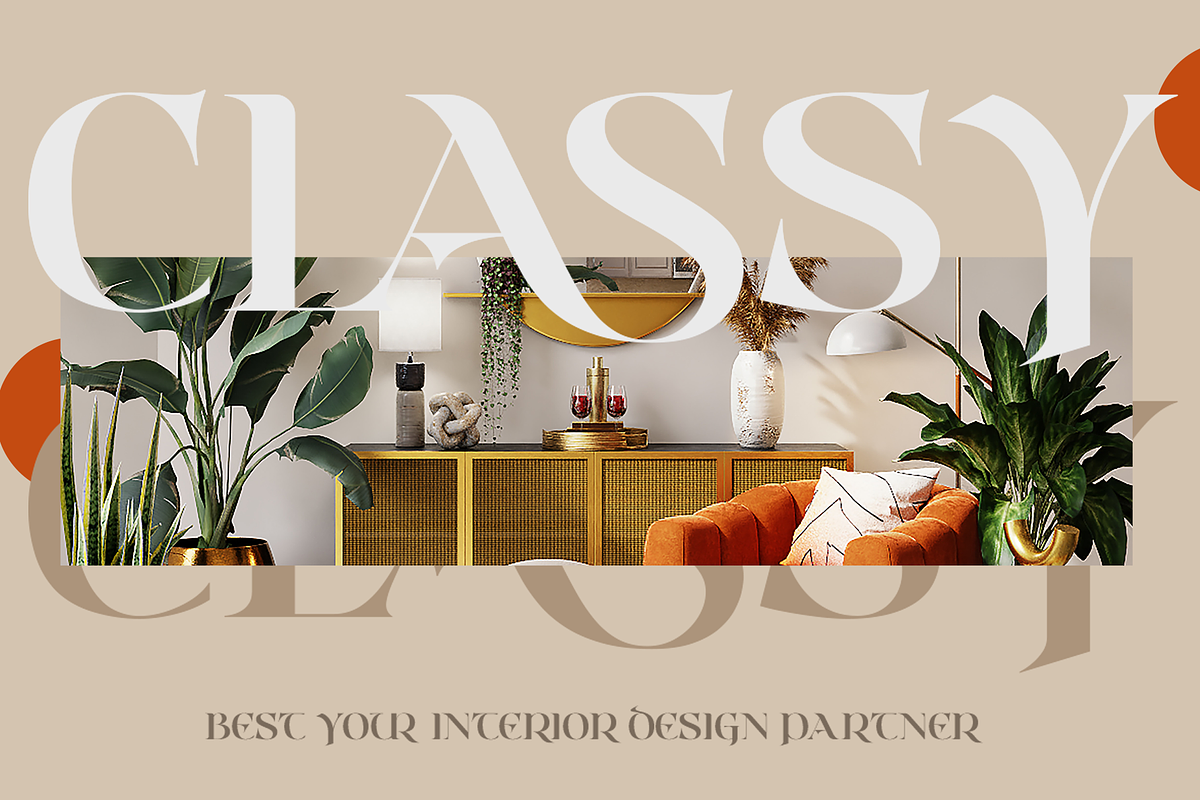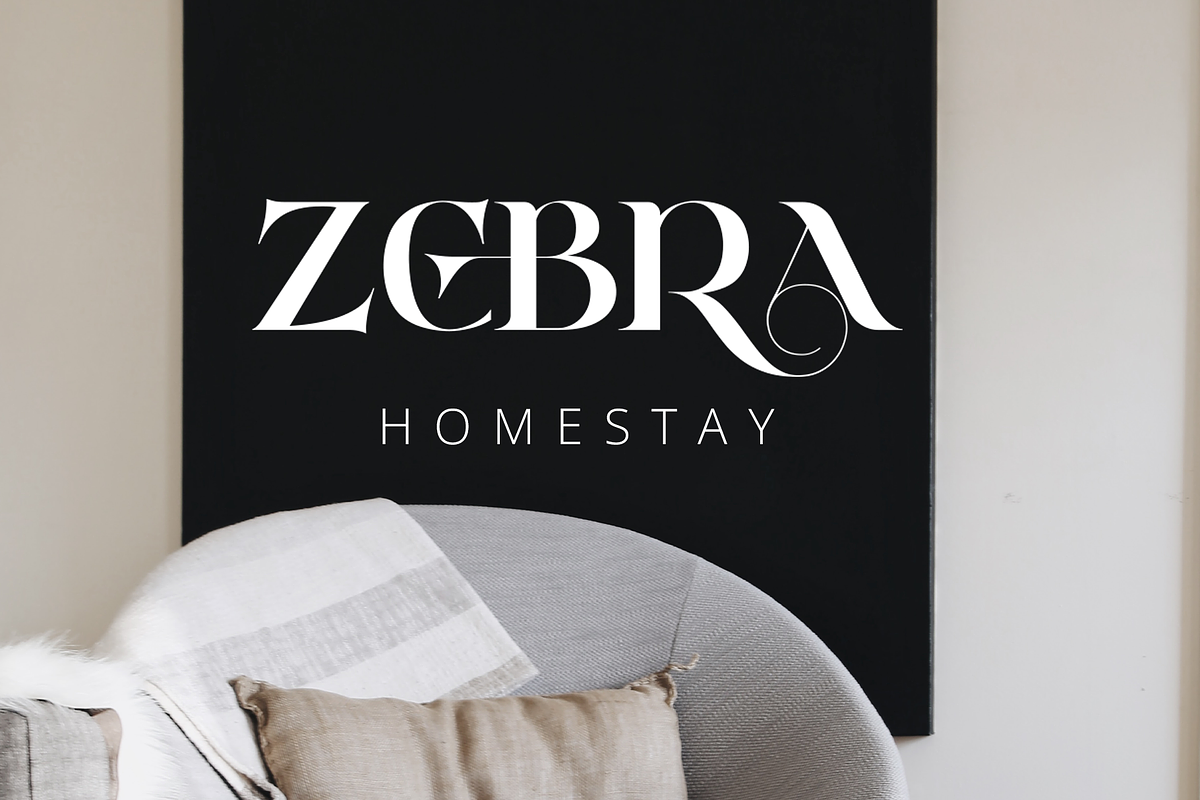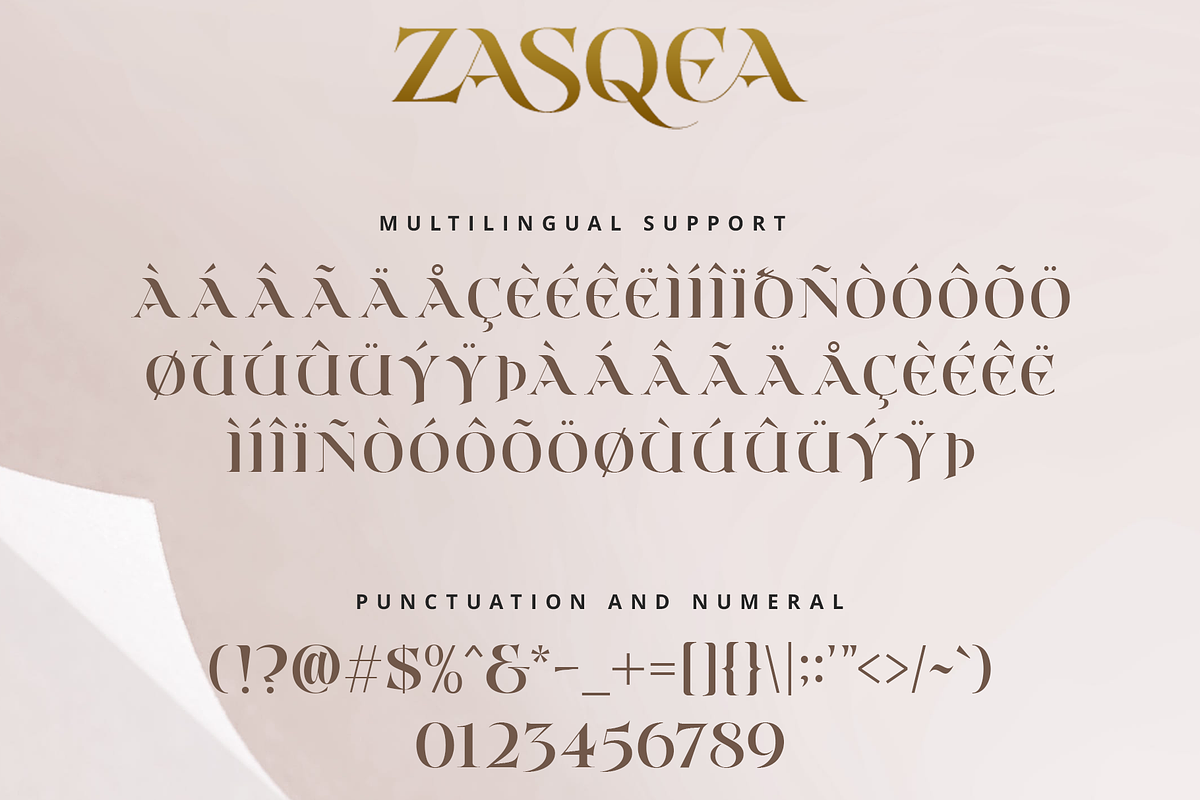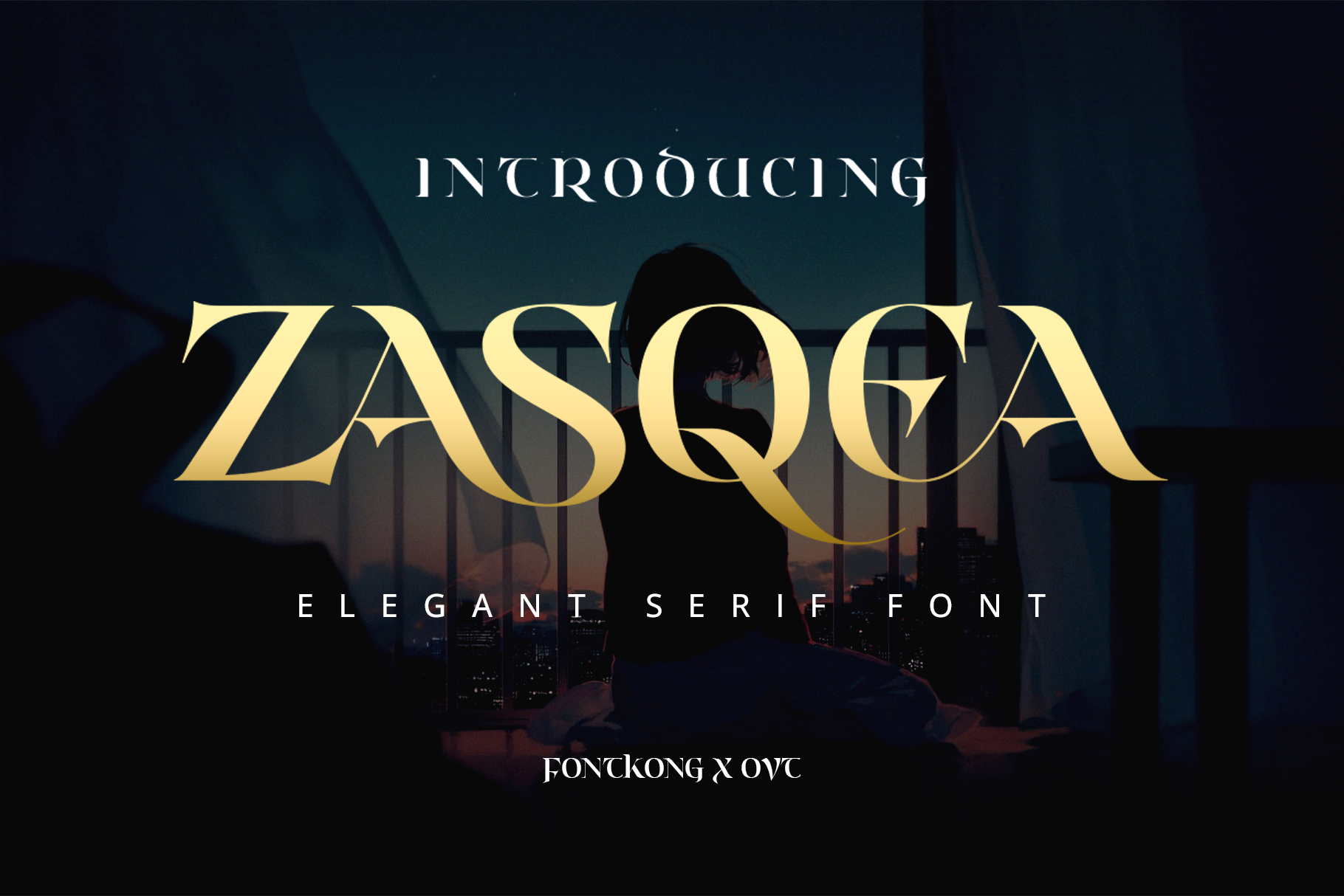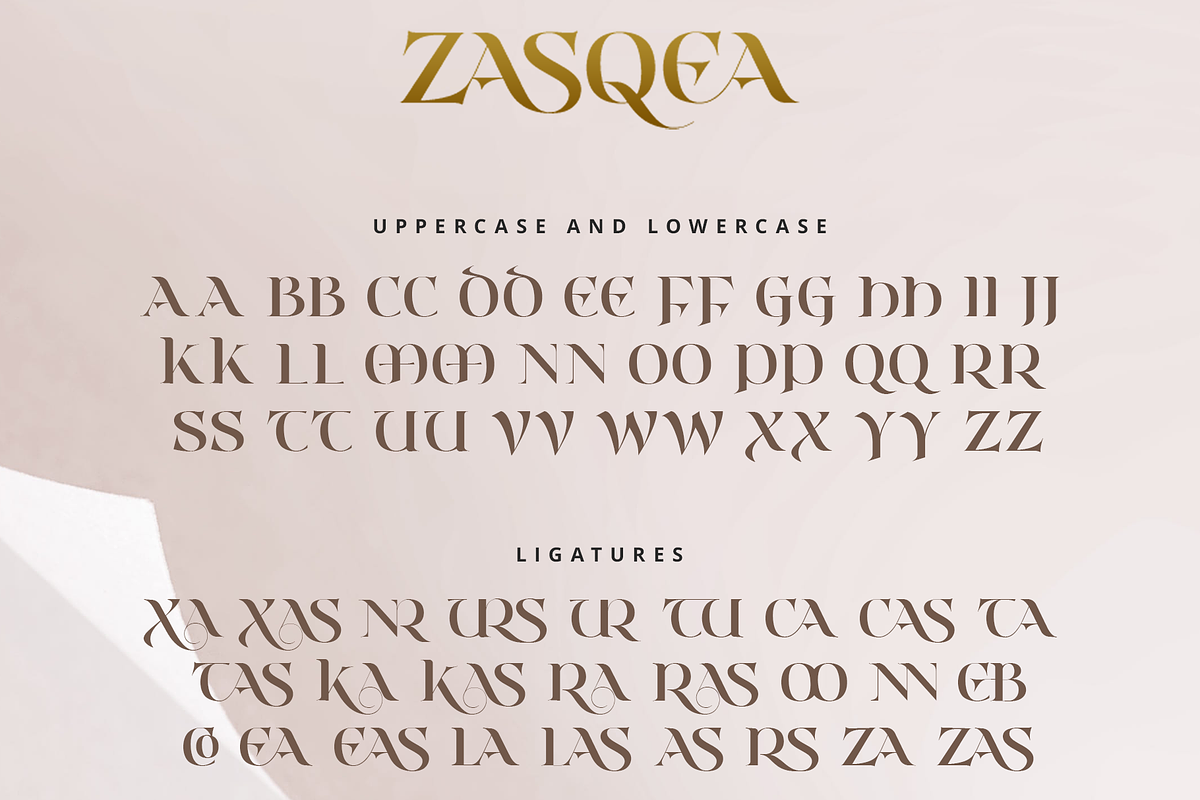
Zasqea - A Elegant Serif Font
Zasqea is a refined and sophisticated serif font that combines classic elegance with modern design elements. Perfect for high-end branding, editorial layouts, and luxurious print materials, Zasqea offers a timeless aesthetic that commands attention. Its graceful serifs and well-balanced letterforms ensure readability and visual harmony, making it a versatile choice for various design applications.
Designed with precision and care, Zasqea brings a sense of sophistication to every project. Whether you're creating elegant logos, captivating headlines, or stylish invitations, this font elevates your content with its understated elegance. The font's versatility extends to both digital and print mediums, ensuring consistency and impact across all your visual communications.
Embrace the elegance and refinement of Zasqea, a font that embodies the essence of classic serif typography with a modern twist. Its unique style and adaptability make it an essential addition to any designer's toolkit, enhancing the beauty and professionalism of your work with every use.